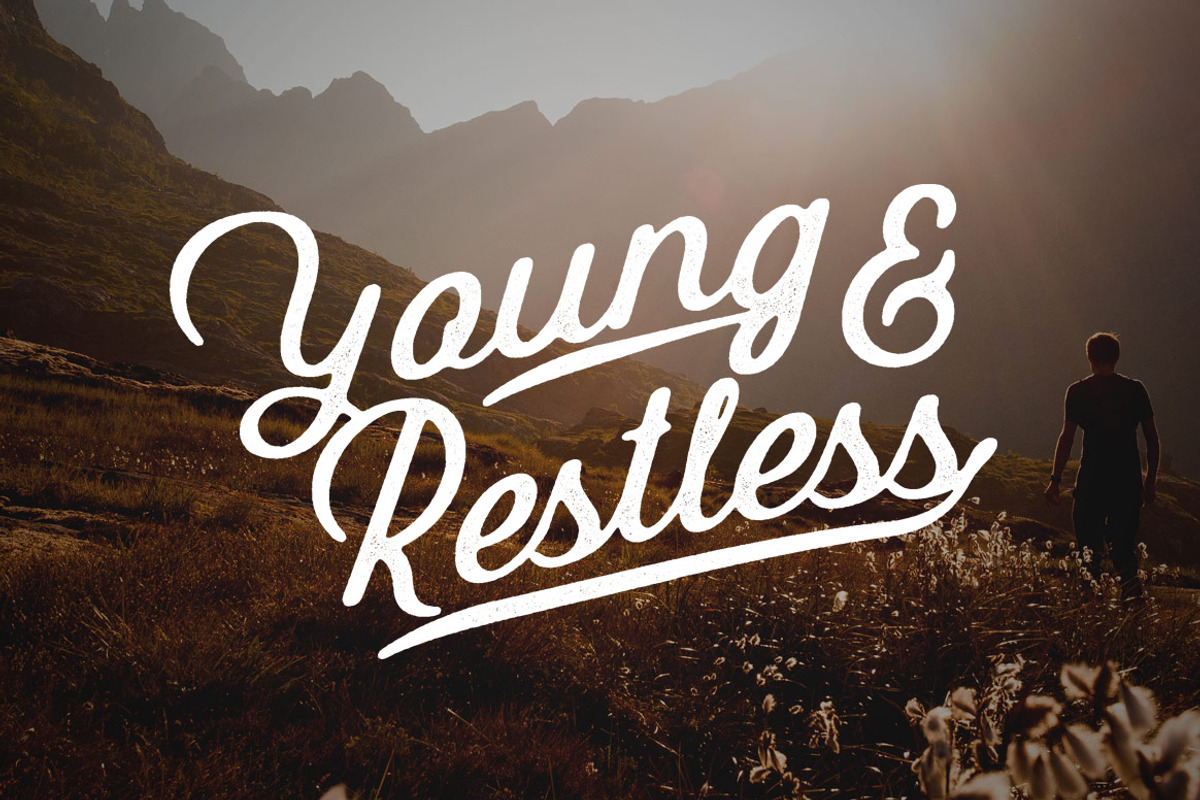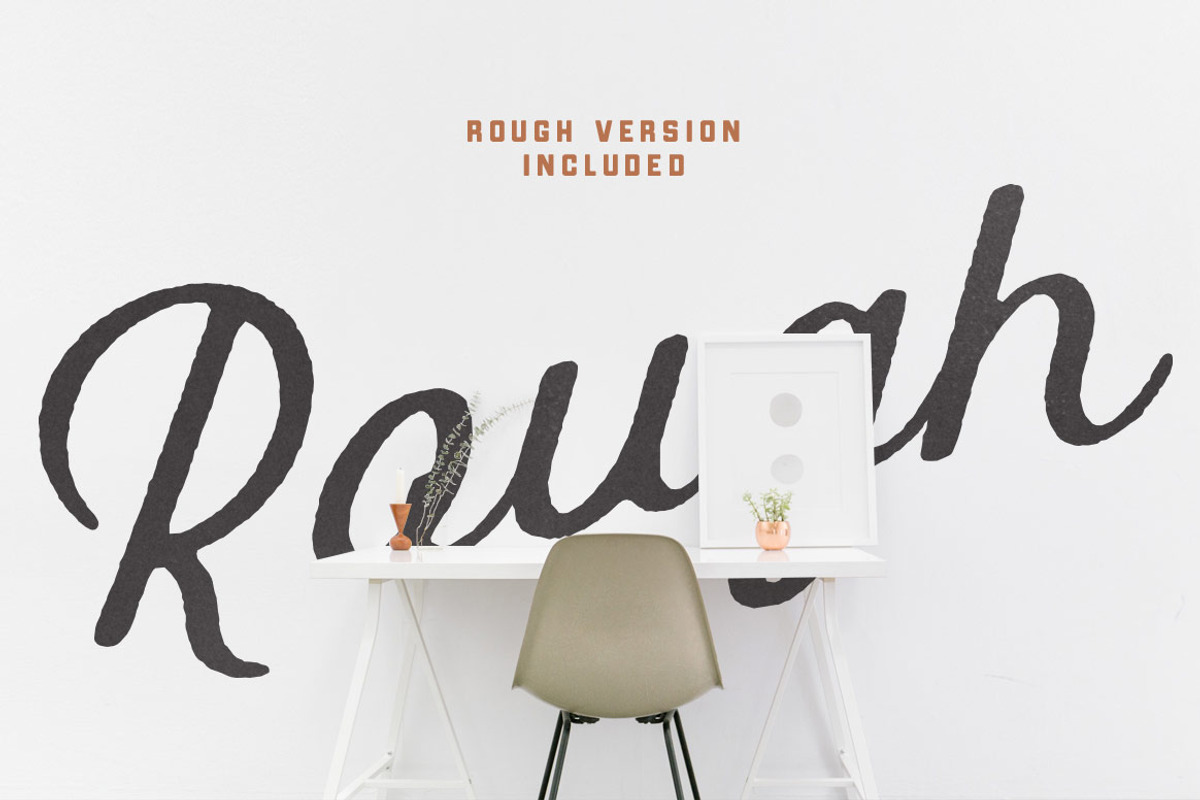
Gibson Font
Gibson is an old time inspired script typeface that pairs perfect with bold, tough type. Absolutely awesome for labels & logos. I started creating typefaces for the use in branding projects and I think that Gibson is the font that my Type Collection was missing. Perfect for use in anything from Branding, Web, Packaging, Etc.